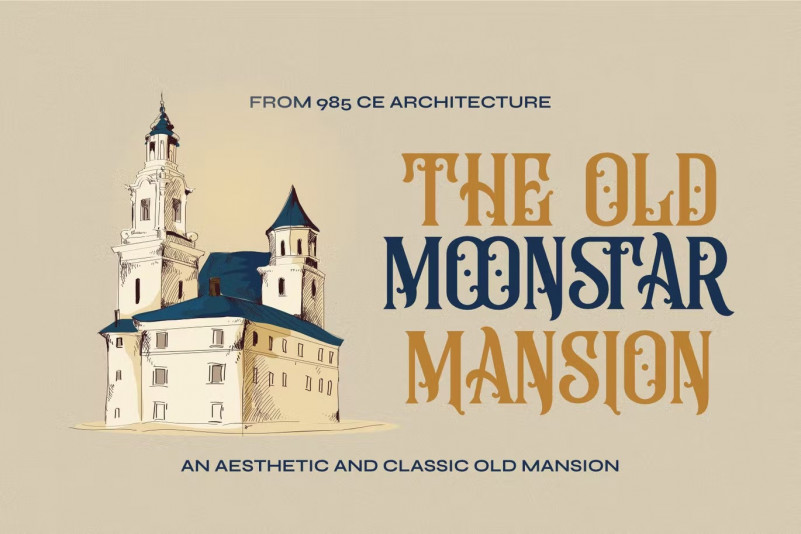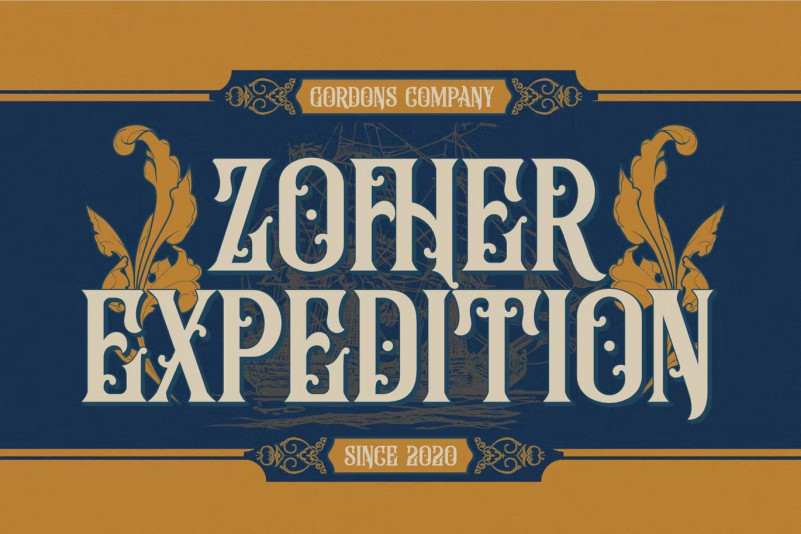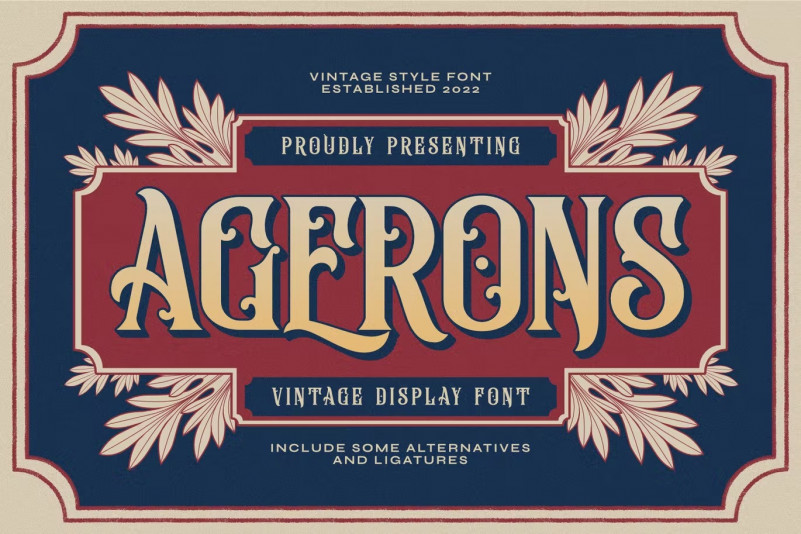
Agerons Font
Agerons Font is perfect for many of your projects such as logos and branding, photography, invitations, watermarks, advertisements, product designs, stationery, wedding designs, labels, packaging products, special events and more.